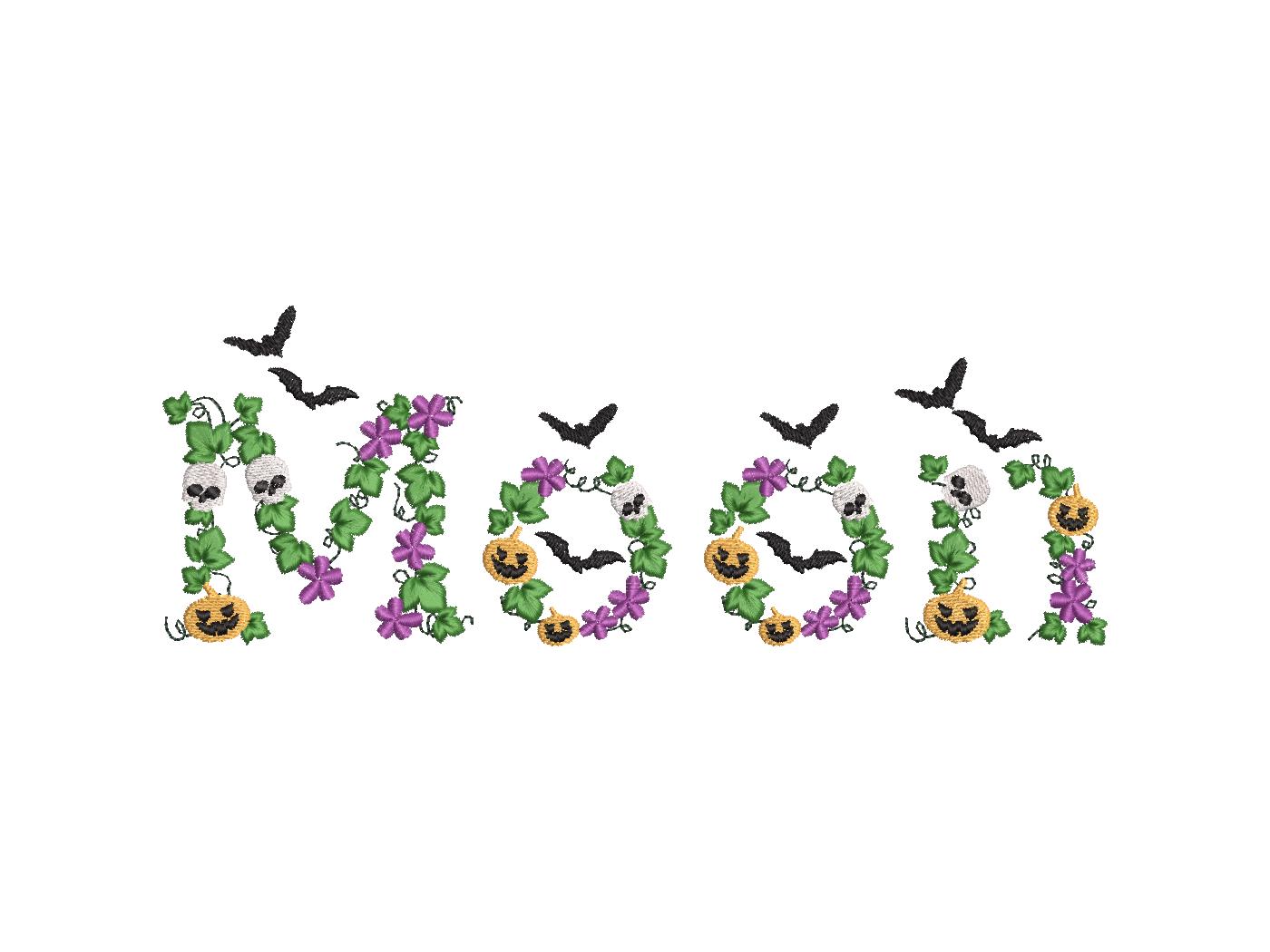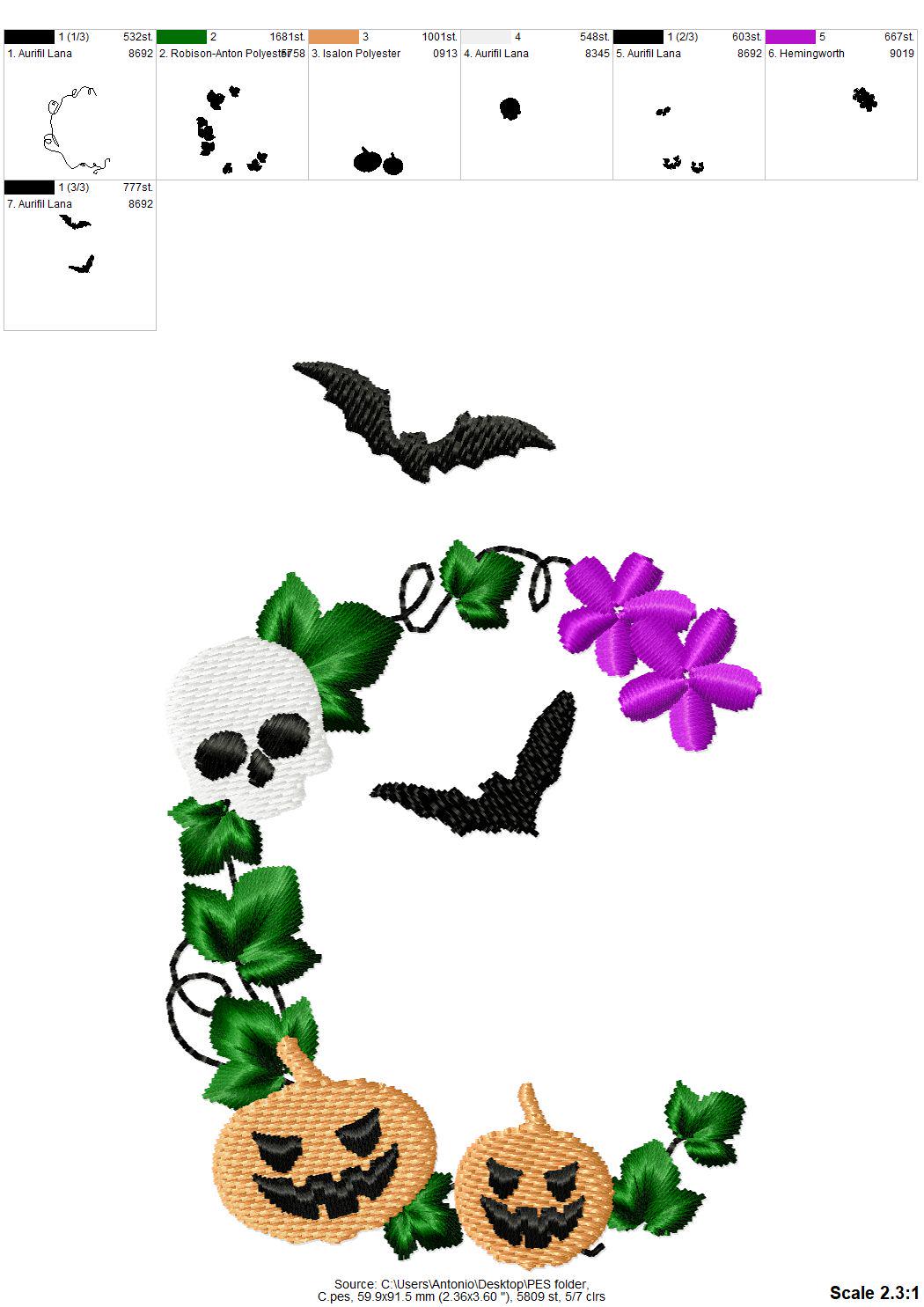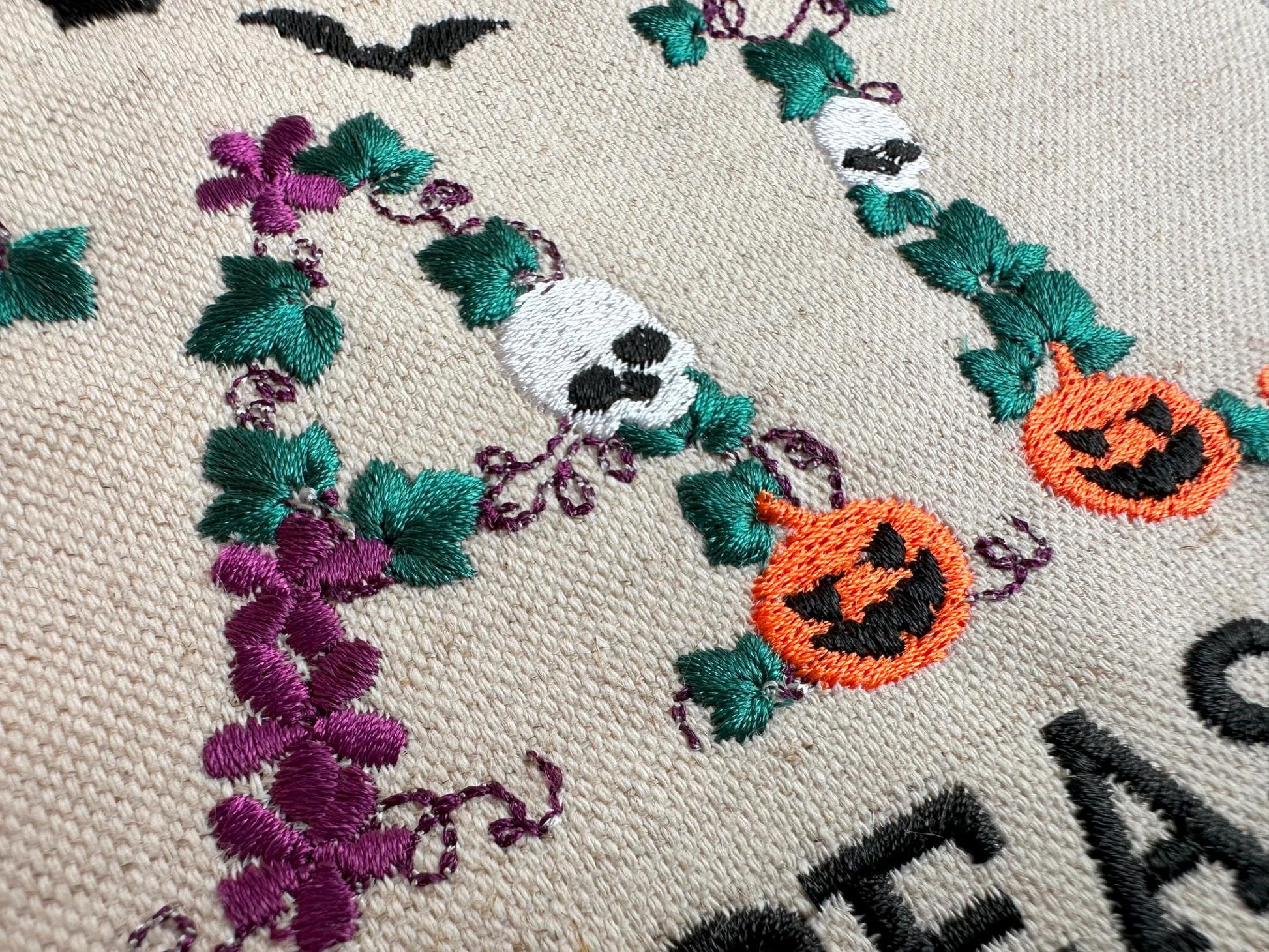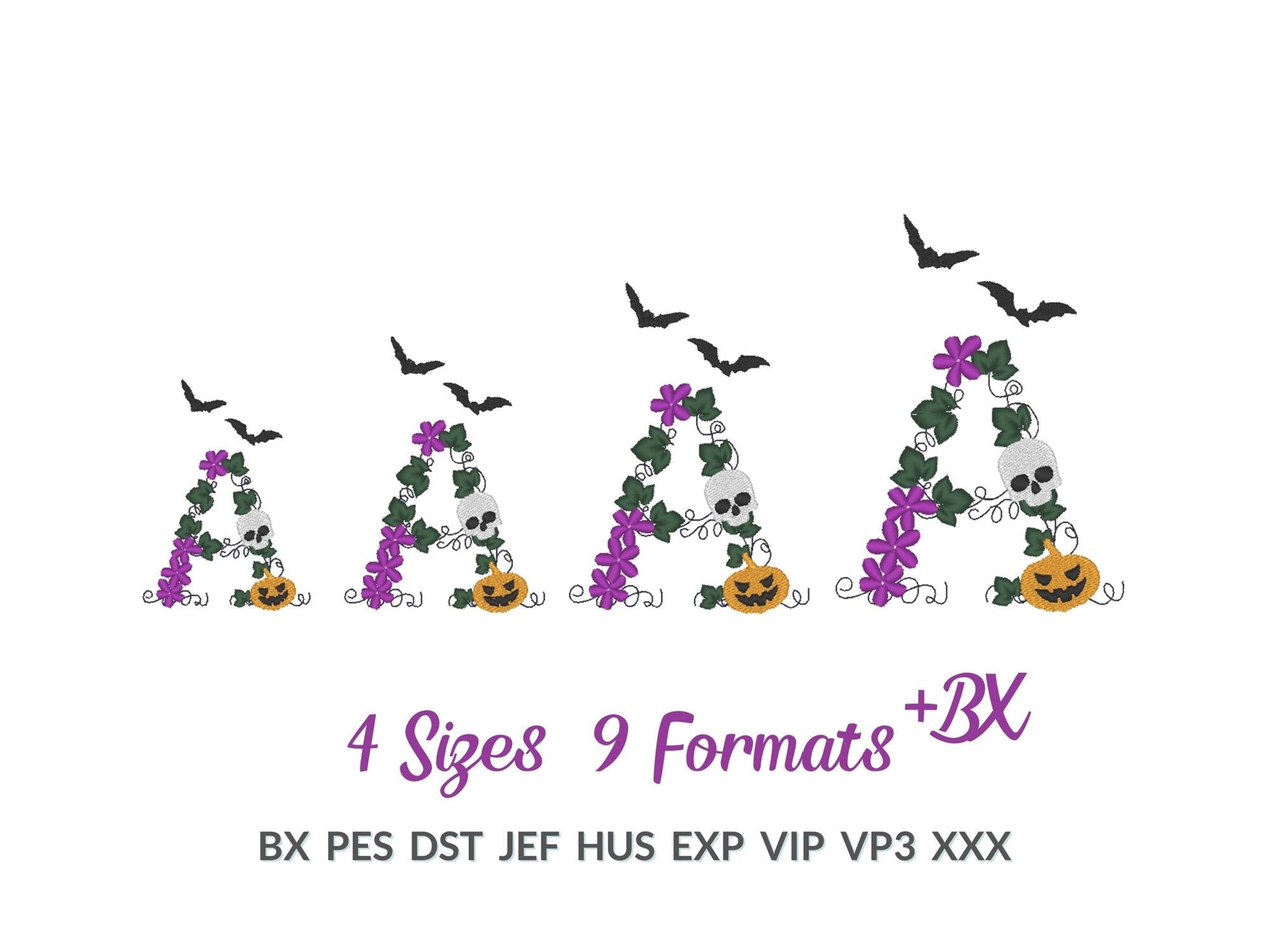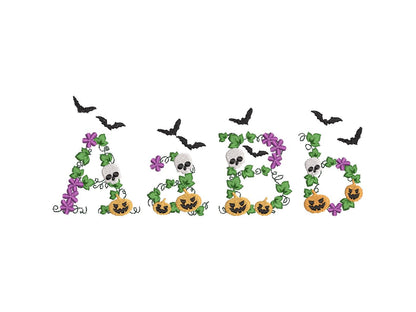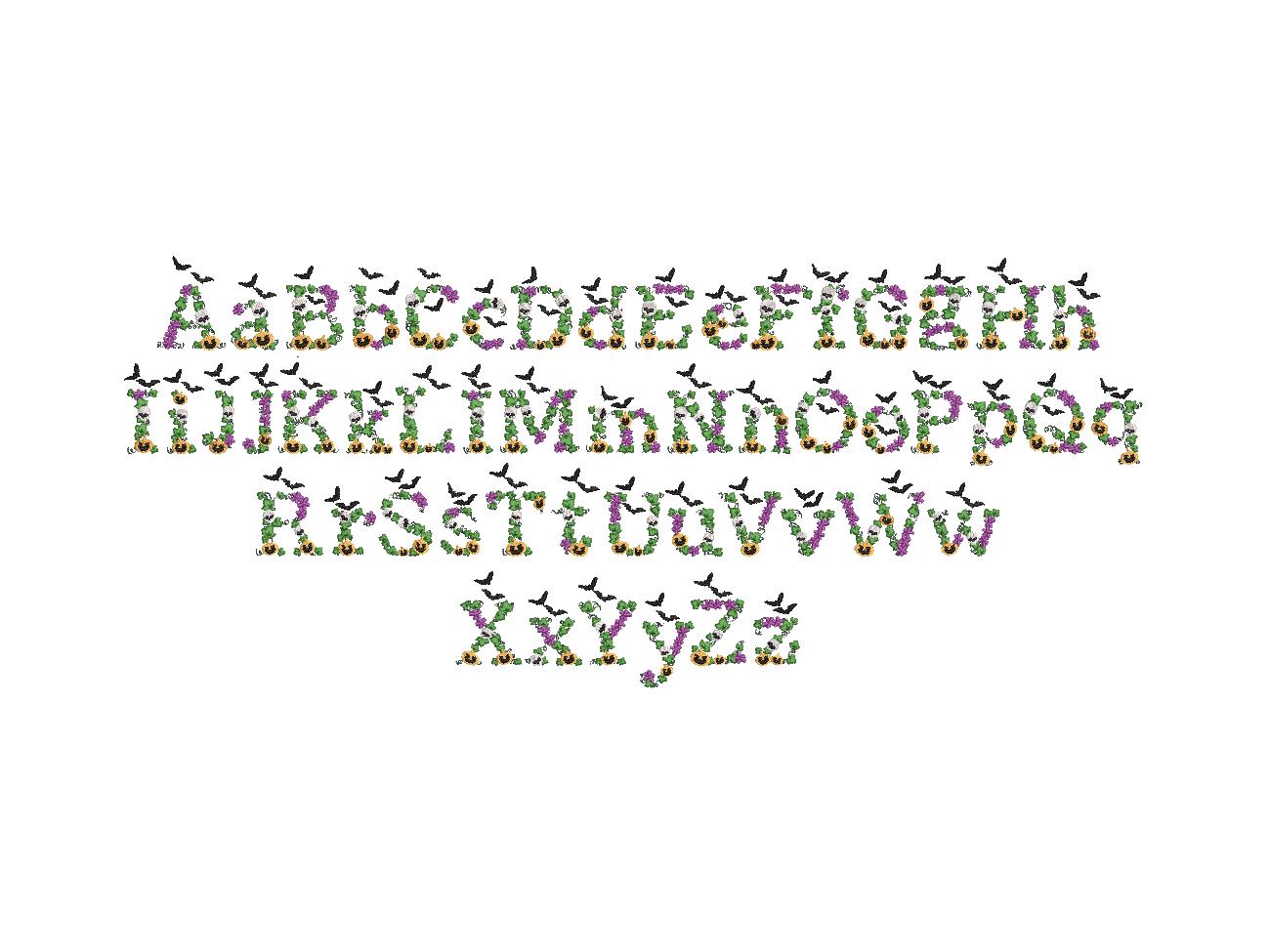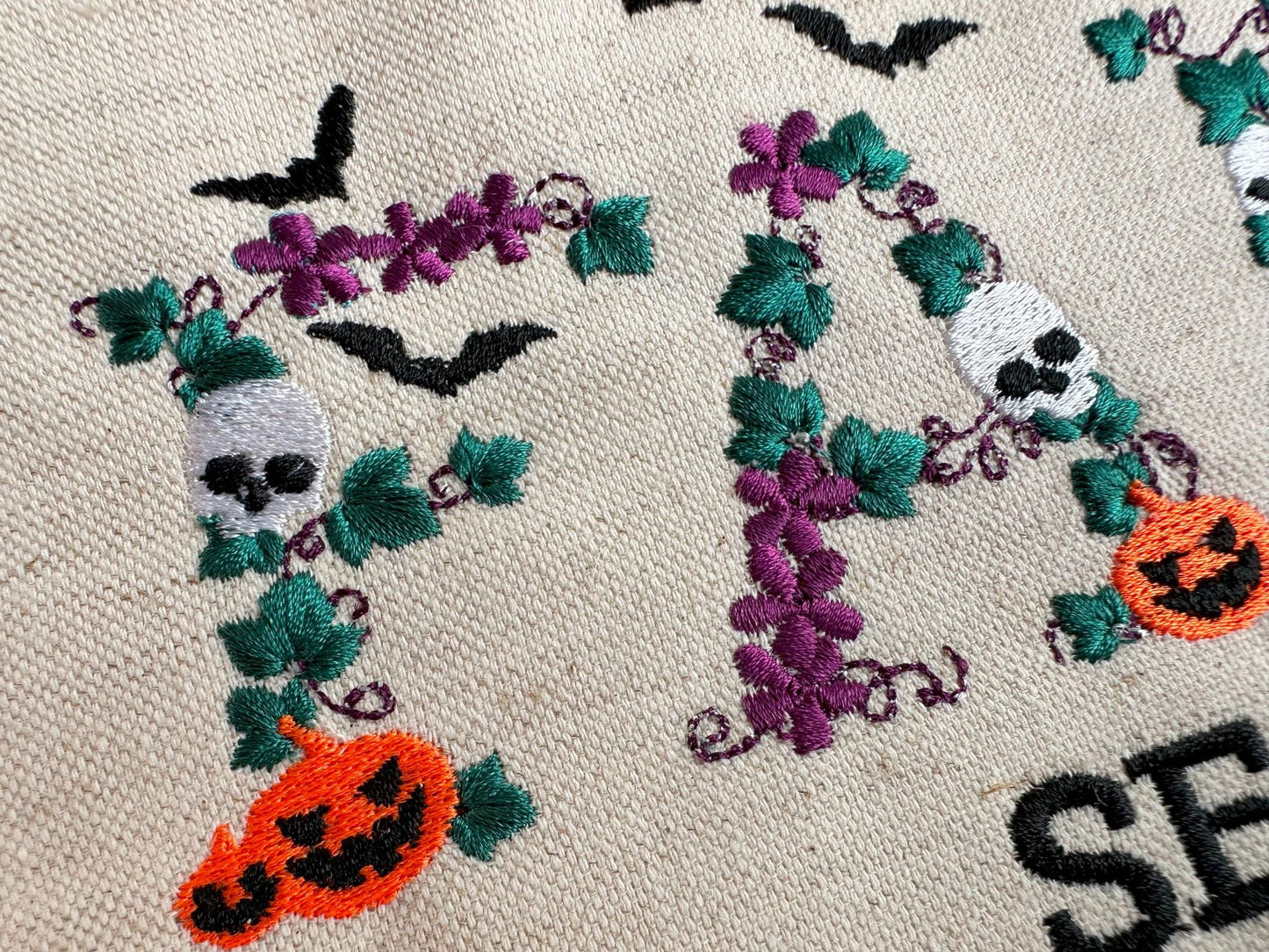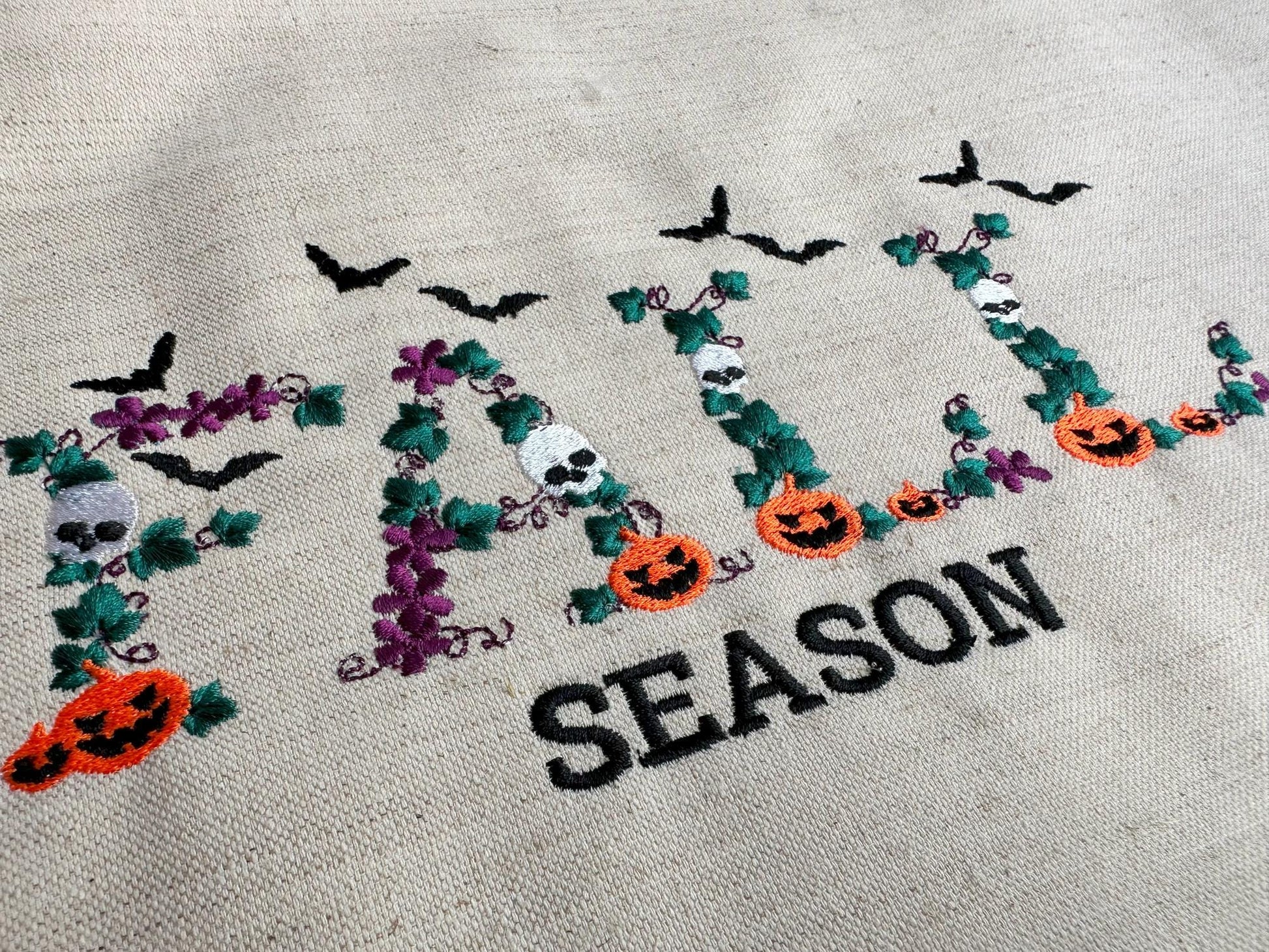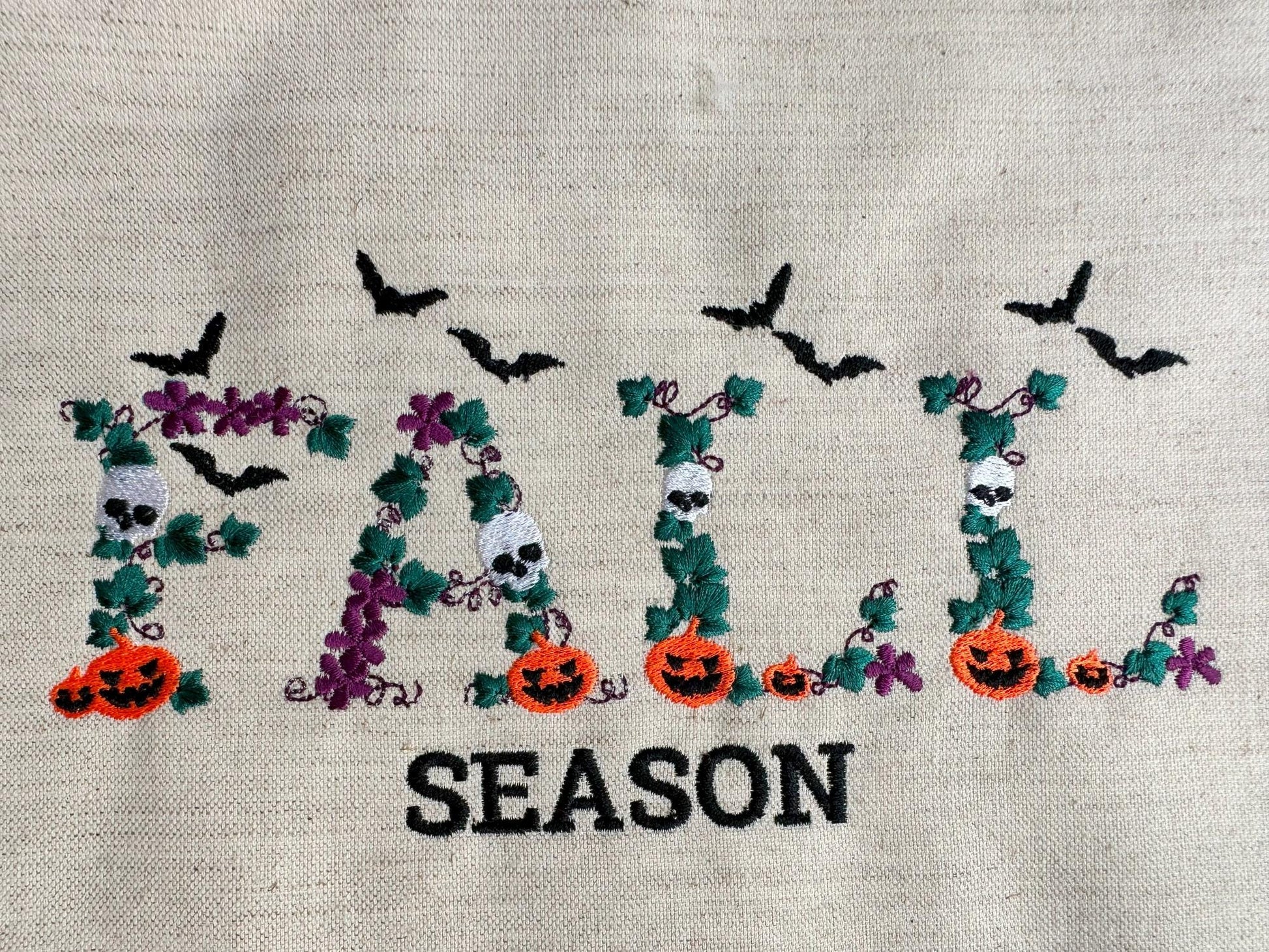
Or click to open the linkA spooky floral Halloween font with bats, skulls and jack-o-lanterns. Fun for Halloween shirts, trick-or-treat bags, pillows and fall decor.
Uppercase and lowercase letters. Four sizes: 3.4, 4, 5 and 6 inches. Every letter is decorated with spooky and floral details.